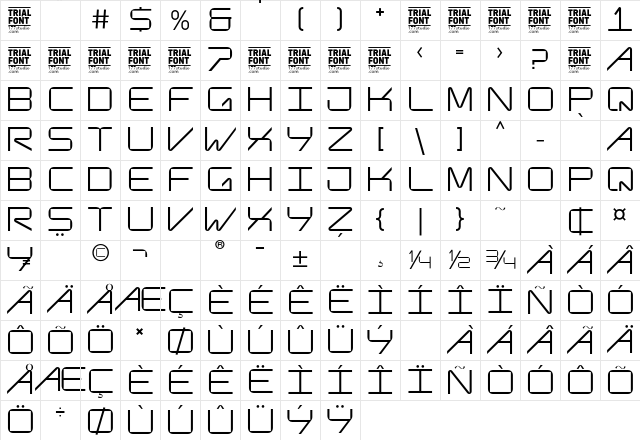
Complete Venture Explore Demo Regular glyph index. Displaying only characters natively supported by Venture Explore Demo Regular font.
Venture Explore Demo is a composed and adaptable typeface that performs quietly and consistently across a wide range of design contexts.
Who designed the Venture Explore Demo Regular font?